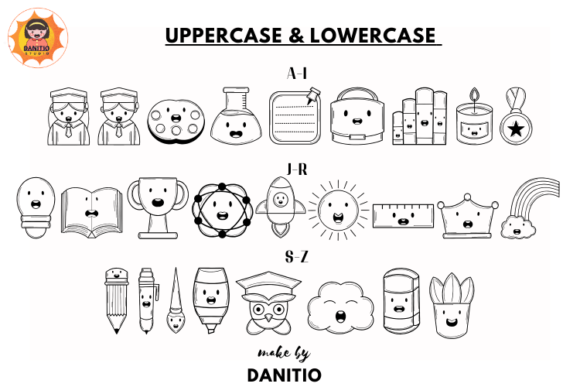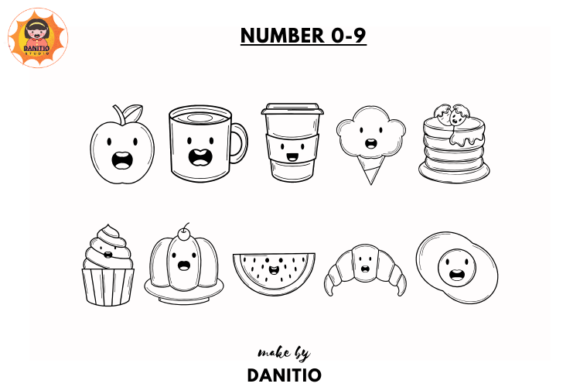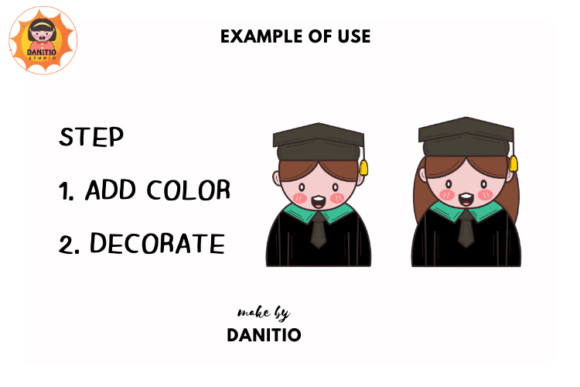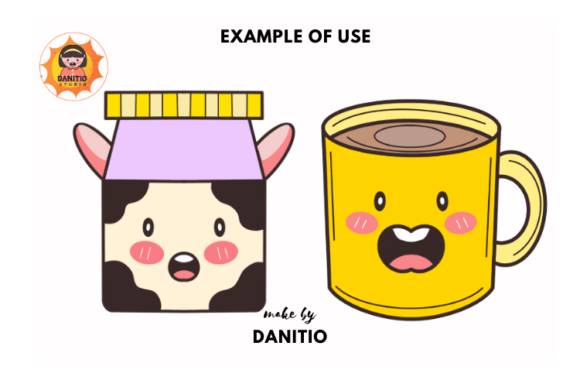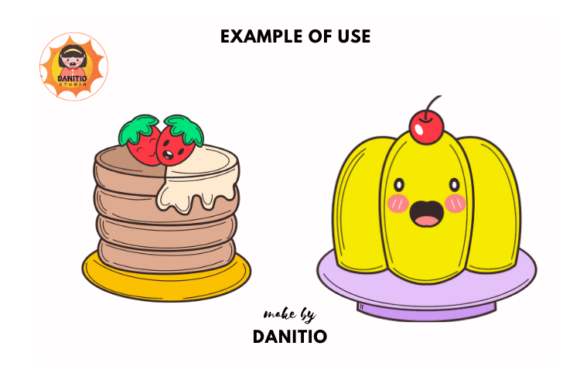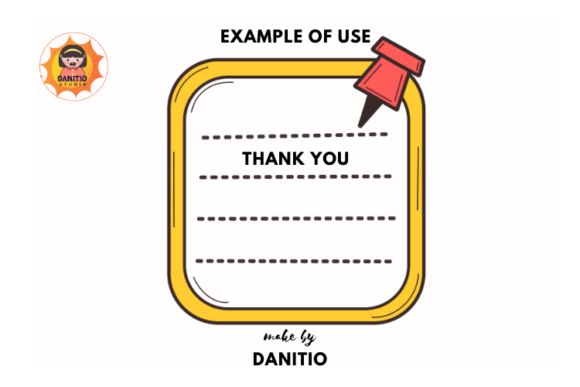
Cute Everyday Font: Adding a Touch of Whimsy to Your Designs
Are you a designer, crafter, or graphic artist looking for a fun and unique font to add a personal touch to your creations? Look no further than Cute Everyday Font, a delightful dingbat font that’s perfect for a variety of projects. In this article, we’ll explore the features and benefits of Cute Everyday Font, and how it can be used to elevate your designs.
What is Cute Everyday Font?
Cute Everyday Font is a dingbat font that combines playful and cute elements to create a fun and story-like aesthetic. The font is designed to be versatile and can be used for a range of applications, from daily tasks and planners to diaries and craft projects. Its unique and whimsical design makes it an ideal choice for crafters and graphic artists who want to add a personal touch to their work.
Features of Cute Everyday Font
Cute Everyday Font has several features that make it an excellent choice for designers and crafters. Some of its key features include:
- Fun and playful design: The font’s cute and whimsical design makes it perfect for adding a touch of personality to your projects.
- Dingbat font: As a dingbat font, Cute Everyday Font features a collection of symbols and icons that can be used to create visually appealing designs.
- Versatile: The font can be used for a range of applications, from daily tasks and planners to diaries and craft projects.
Uses for Cute Everyday Font
Cute Everyday Font is a versatile font that can be used for a variety of projects. Some ideas for using the font include:
- Diary writing: Add a personal touch to your diary entries with Cute Everyday Font’s fun and playful design.
- Planners: Use the font to create visually appealing planners and organizers that are both functional and fun.
- Decorating: Add a touch of whimsy to your craft projects, such as scrapbooking, card making, and other paper crafts.
- T-shirts and tote bags: Use Cute Everyday Font to create custom designs for t-shirts, tote bags, and other products.
Benefits of Using Cute Everyday Font
Using Cute Everyday Font can bring several benefits to your designs and craft projects. Some of the benefits include:
- Unique and personalized designs: The font’s unique and playful design allows you to create one-of-a-kind designs that stand out from the crowd.
- Time-saving: With Cute Everyday Font, you can quickly and easily create visually appealing designs without spending hours searching for the perfect font or design elements.
Tips for Using Cute Everyday Font
To get the most out of Cute Everyday Font, here are a few tips to keep in mind:
- Experiment with different colors and combinations: Don’t be afraid to try out different color combinations and font sizes to create unique and visually appealing designs.
- Use it with other fonts: Cute Everyday Font pairs well with other fonts, so feel free to experiment with different font combinations to create interesting and dynamic designs.
- Make it your own: Don’t be afraid to add your own personal touch to your designs by incorporating your own images, graphics, or text.
Cute Everyday Font is a fun and versatile dingbat font that’s perfect for designers, crafters, and graphic artists. With its playful and cute design, it’s ideal for a range of applications, from daily tasks and planners to diaries and craft projects. Whether you’re looking to add a personal touch to your designs or create unique and visually appealing projects, Cute Everyday Font is an excellent choice. So why not give it a try and see how it can elevate your designs?